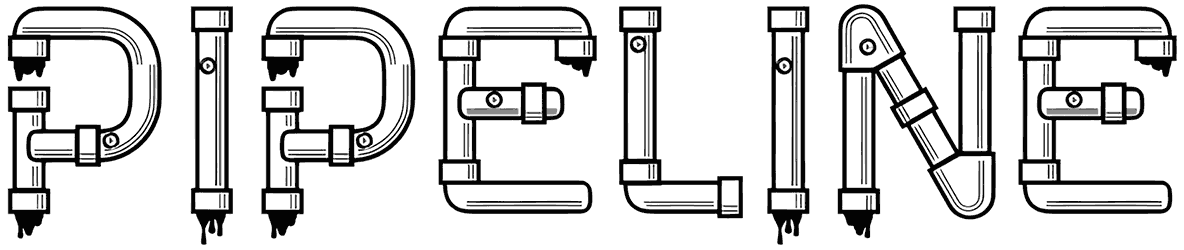
Pipeline Font
For a funny show, having unique words can attract a lot of attention and be interesting. This mechanical font, which is called Pipeline, features pipe letters that are dripping. Even though there is no support for lowercase letters, you can put this fancy font on your novel designs, like posters, banners, games, or the like, and show off your creativity.
Pipeline is a colorfont (COLR/CPAL) made to look like cartoon pipes.